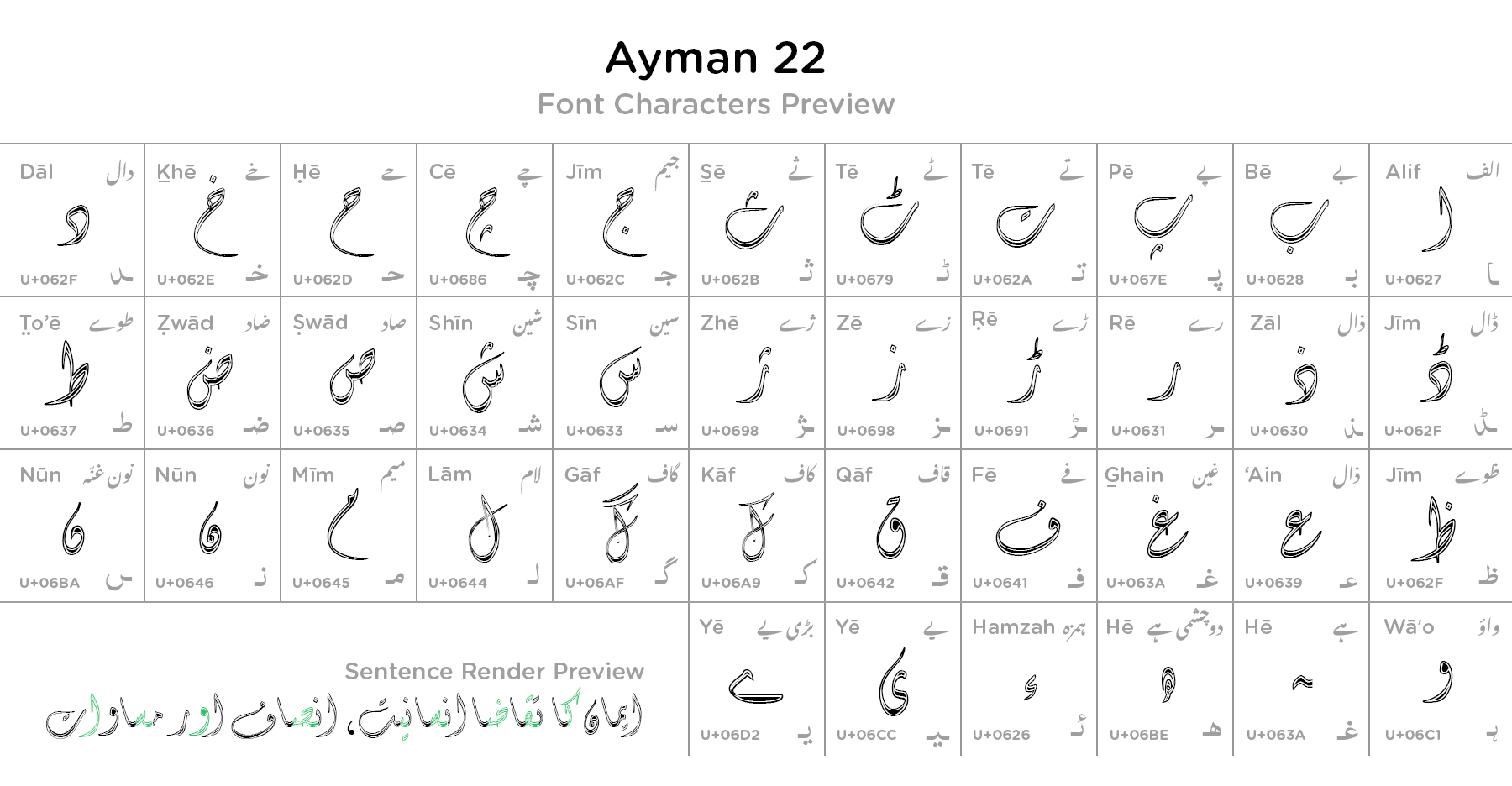
Ayman 22 has a modern and decorative look. It has bold but defined strokes. It uses a rounded and elegant calligraphic style. The outline effect enhances its visual appeal. Like most Arabic fonts, Ayman 22 connects letters fluidly to maintain the traditional flow of Arabic writing. The letters are wide and slightly elongated. The design has dual-tone effect. It means, it has outline strokes and filled inner space. The edges of the characters are smooth and rounded. The hollowed effect in the center of the letters adds elegance and lightness. Despite its boldness, Ayman 22 has a refined and polished look that is suitable for formal uses. It is ideal for event invitations, logos, posters, headers, signage, branding, decorative writings, and much more. Ayman 22 supports all Arabic characters and diacritical marks, making it versatile for any Arabic script content. It has a glyph count of 395. So, its outlined structure and smooth strokes make it versatile for Arabic and Italic creative, formal, and decorative uses.